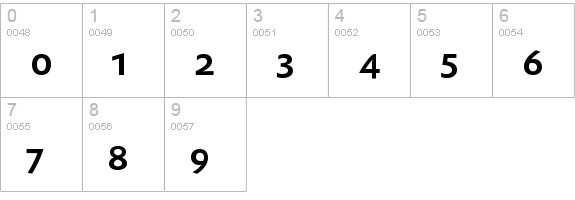
DTLProkyonTCapsMedium is a modern and versatile font that exudes elegance and sophistication. With its clean lines and sharp edges, this typeface is perfect for creating impactful headings, titles, and logos. The medium weight of the font strikes a balance between boldness and readability, making it suitable for a wide range of design projects. What sets DTLProkyonTCapsMedium apart is that it is available for free download at FontsMarket.com. This means that you can easily access and use this high-quality font in your designs without any cost. Whether you are working on print materials, websites, or branding projects, DTLProkyonTCapsMedium is a valuable addition to your font collection. Elevate your designs with this sleek and professional typeface today.